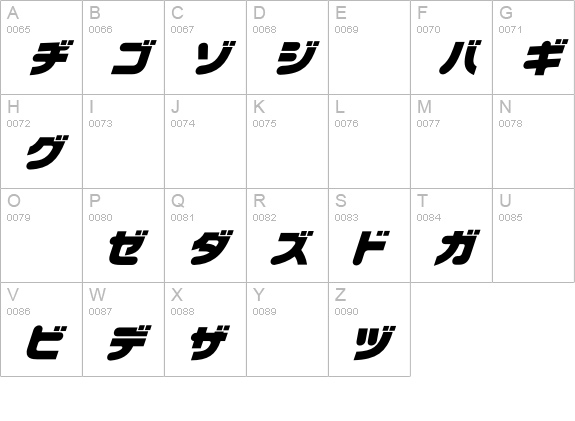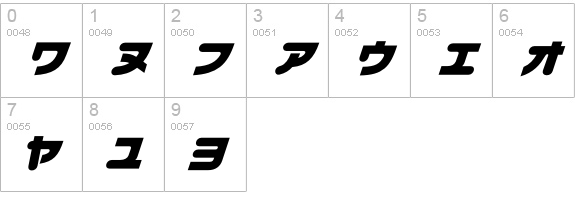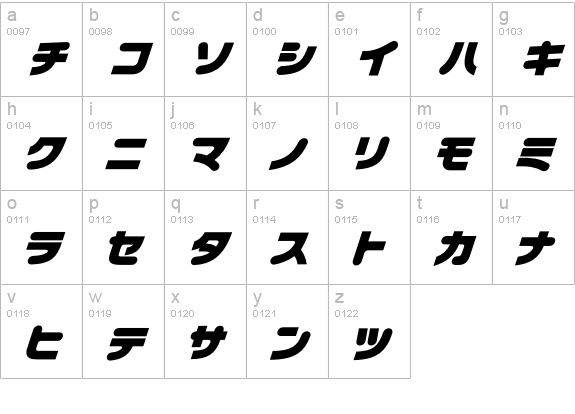
Chibacity-Black Font Details
Chibacity-Black is a maximum-weight, dramatic variant in the Chibacity typeface family \xE2\x80\x94 well suited to maximum-impact headlines, posters, and packaging.
Chibacity-Black font is a sleek and modern typeface that exudes sophistication and style. Its bold and sharp letterforms make a statement while still maintaining readability. The Chibacity-Black font is perfect for headlines, logos, branding, and any design project that needs a touch of elegance. The best part? Chibacity-Black font is available for free download at FontsMarket.com! Don't miss out on adding this versatile and eye-catching font to your collection. With its contemporary design and timeless appeal, Chibacity-Black font is sure to elevate your projects to the next level.